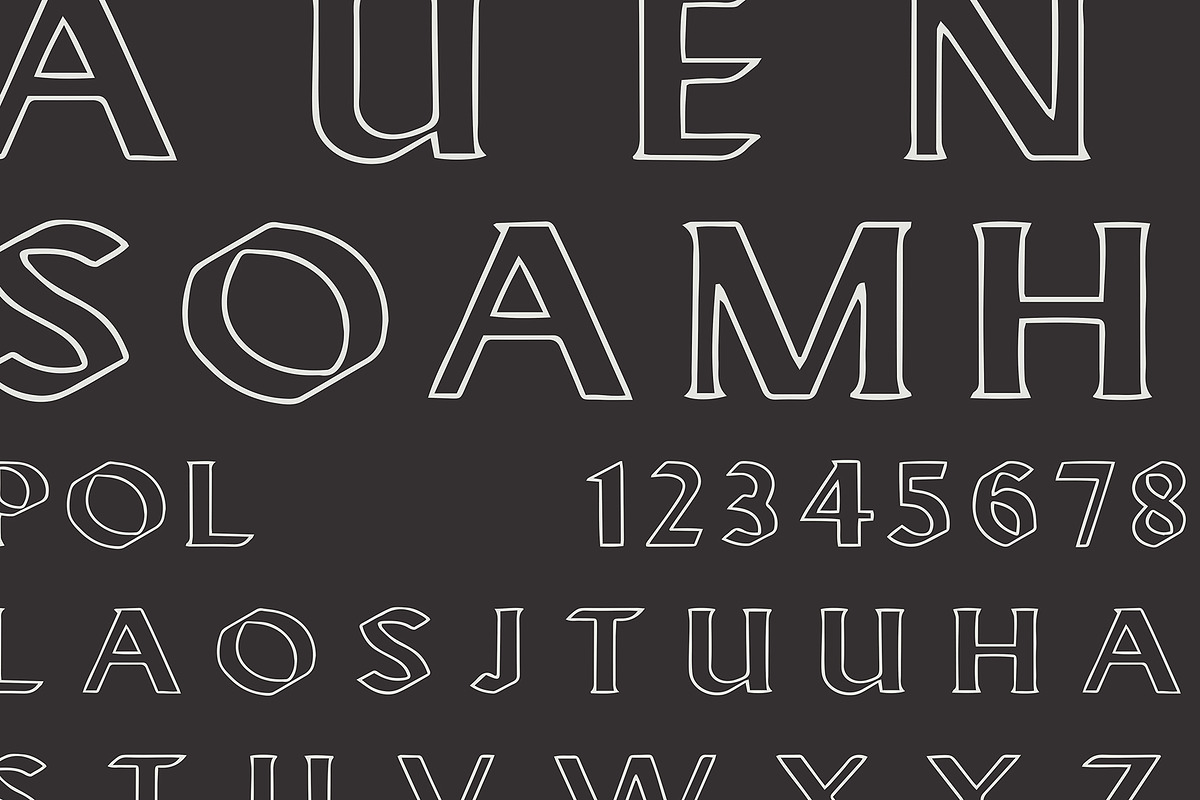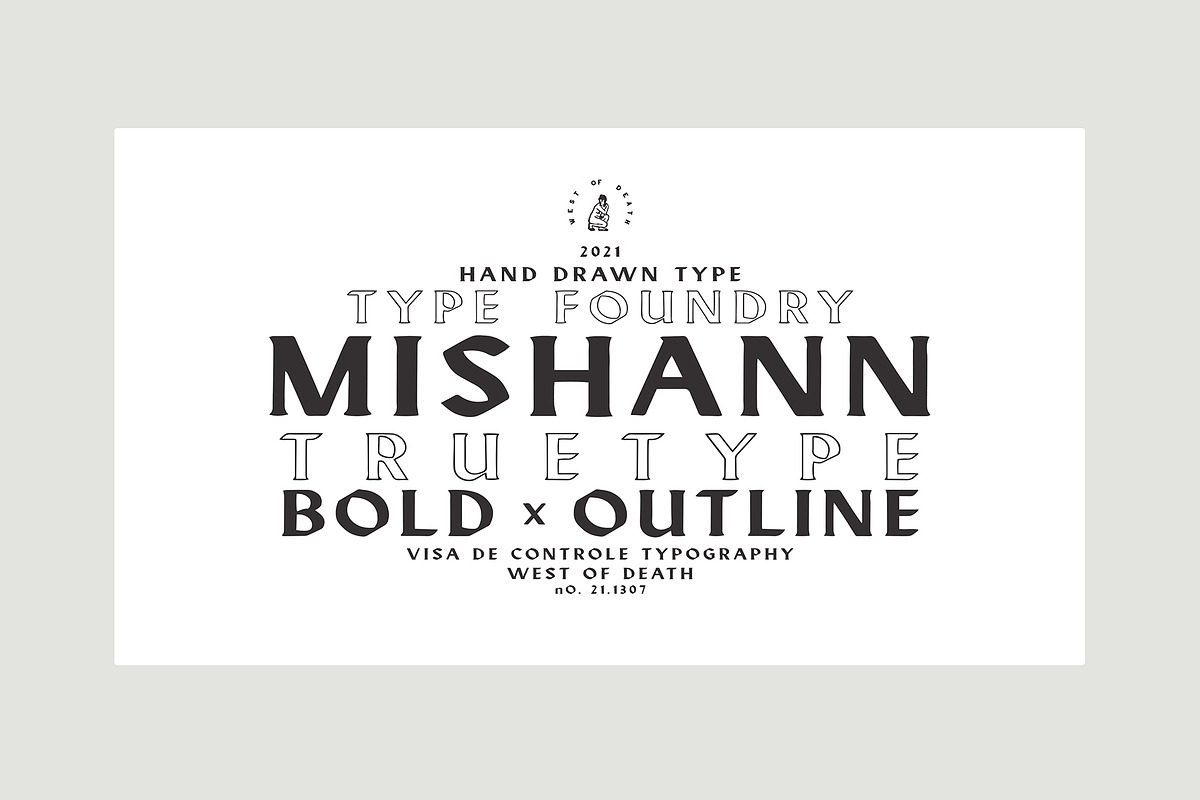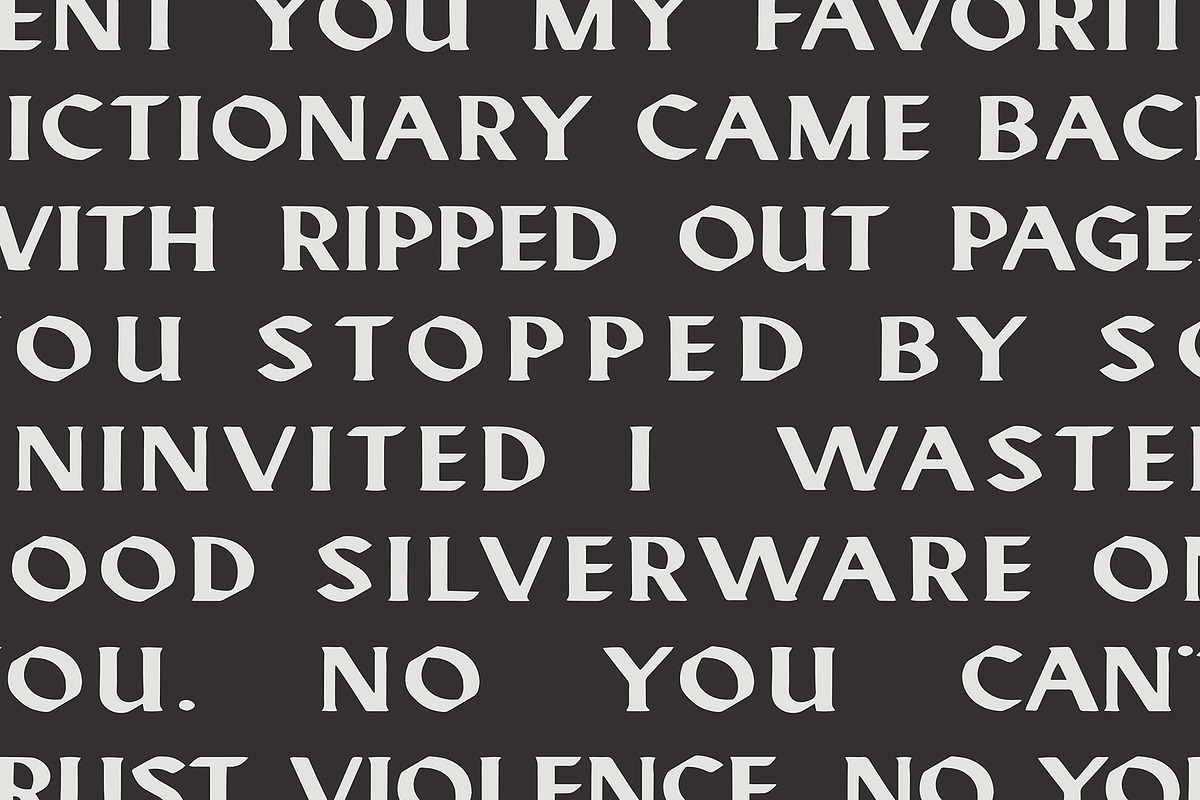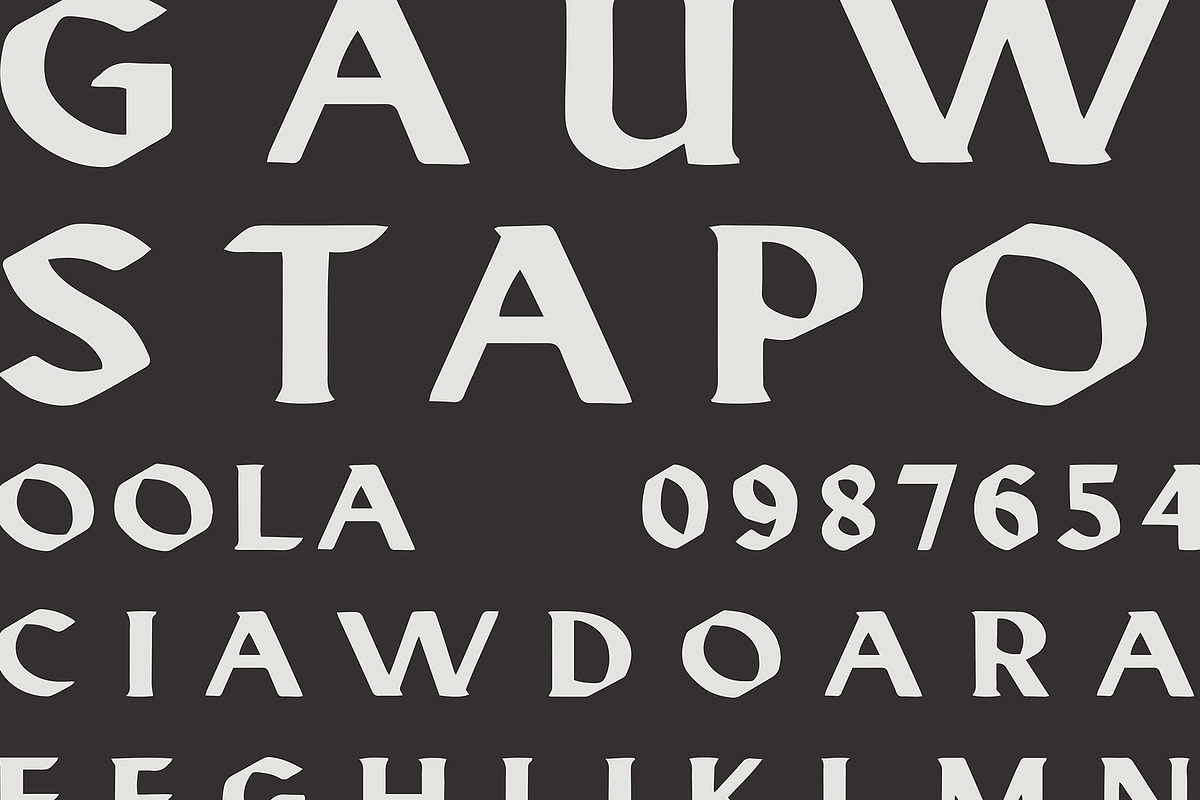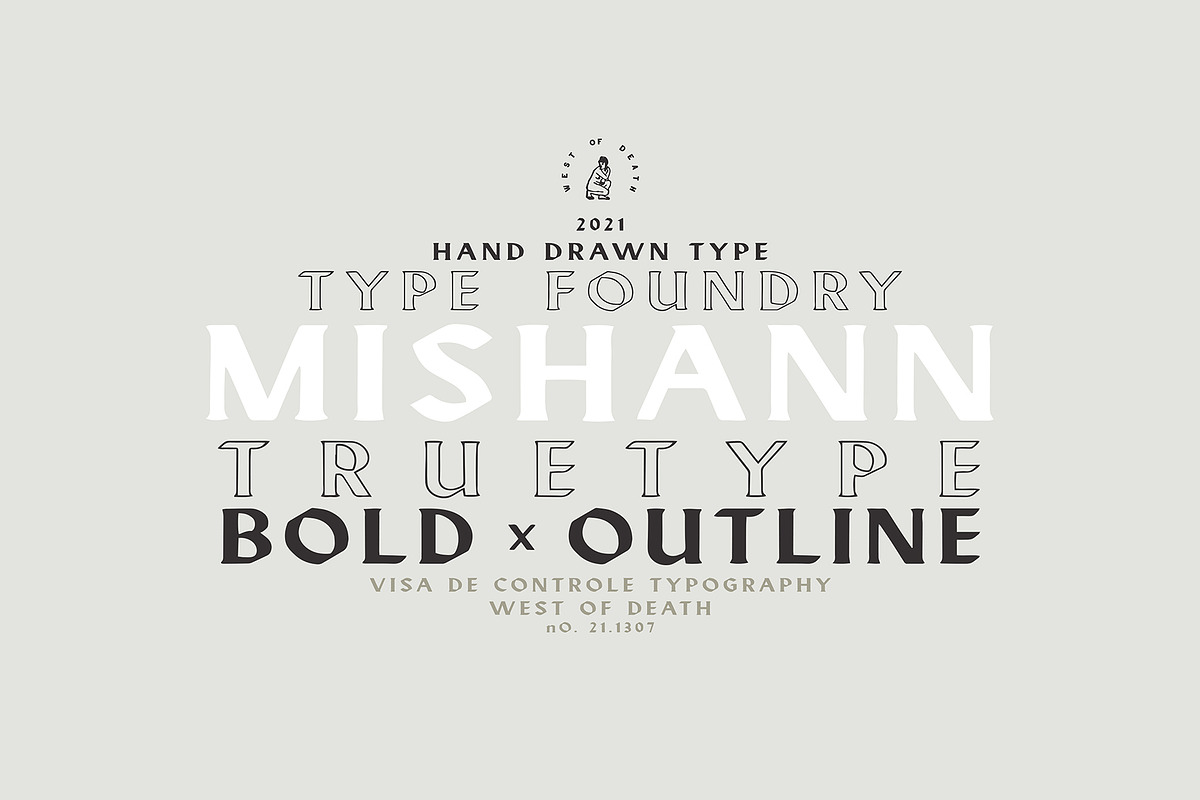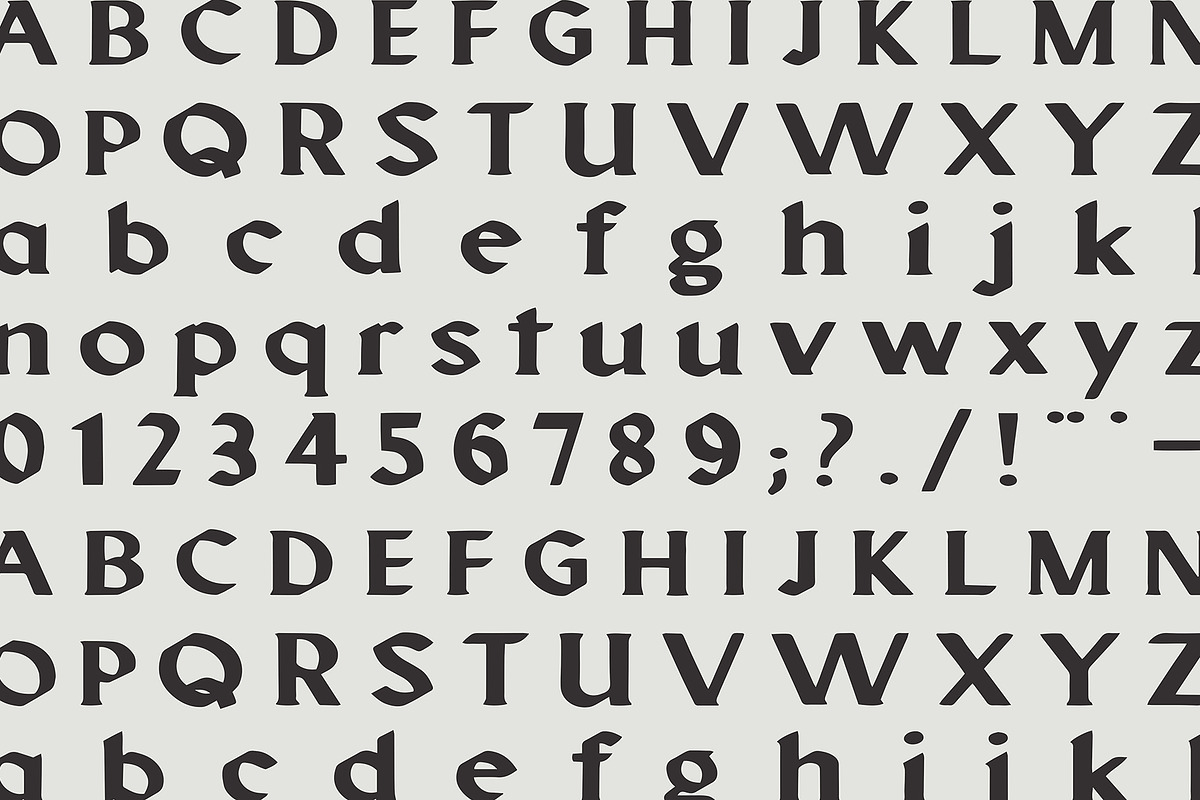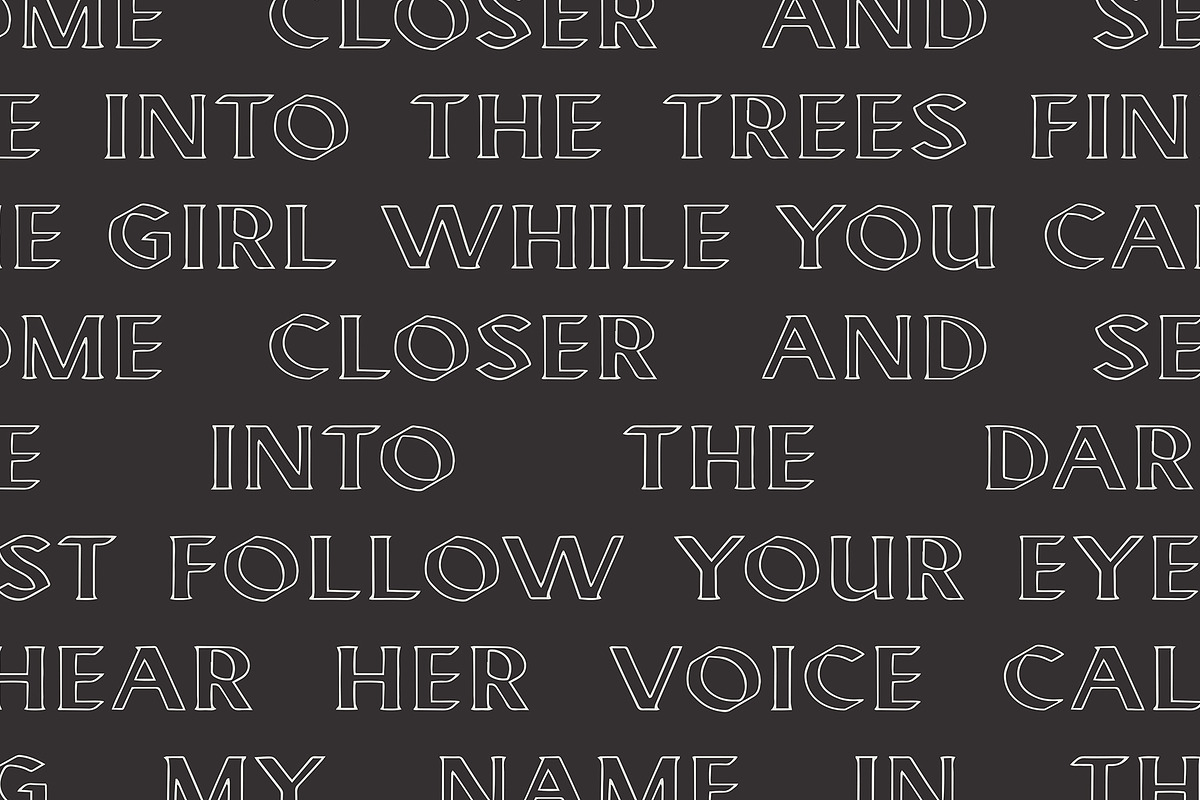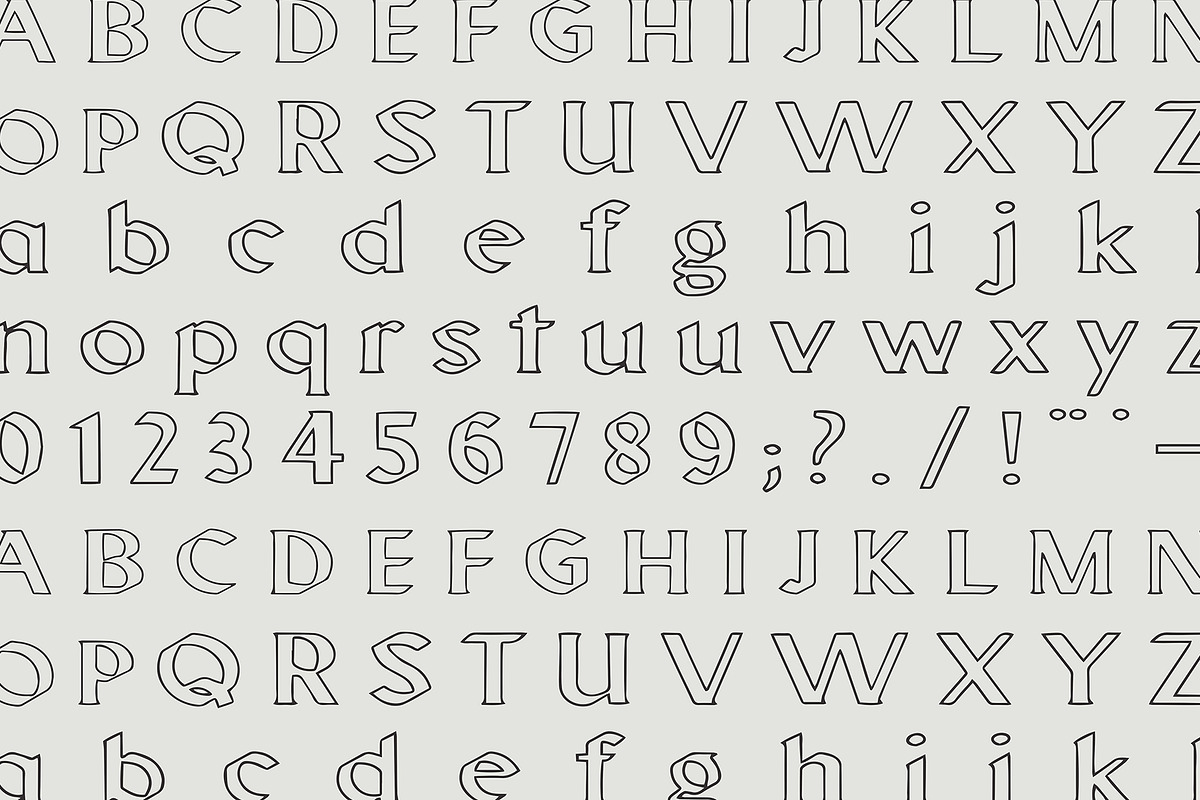
MISHANN TrueType - BOLD & OUTLINE
MISHANN is a hand drawn typeface created by West of Death. Inspired by classic calligraphy black letter and modern Swiss design. By combining these styles a new form was created using the contrasting weights and disciplines. Mishann is offered in BOLD and OUTLINE, Ideal for web, branding & packaging. (.otf file x2). Upper and Lowercase. Limited punctuations. 2021 - USA - WEST OF DEATH